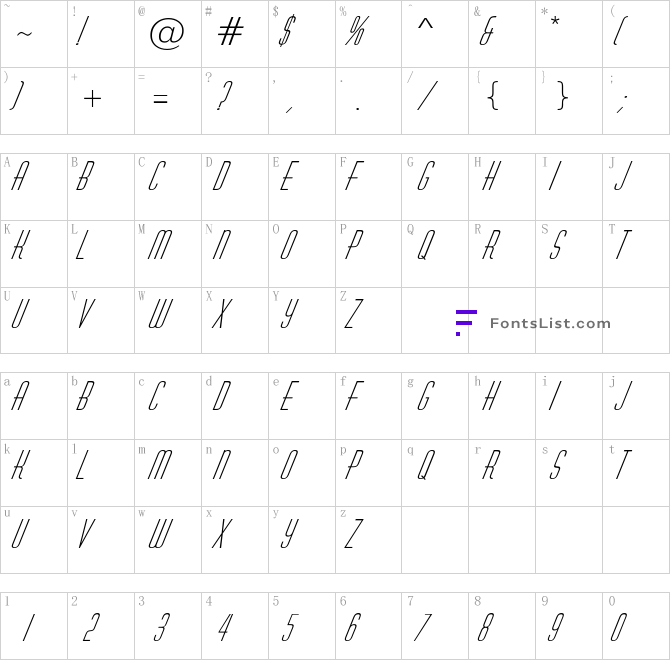
a_Huxley-Italic.ttf is a very beautiful artistic font, a_Huxley-Italic.ttf is widely used in the design and printing of various books and pictures,a_Huxley-Italic.ttf has a strong visual impact,a_Huxley-Italic.ttf is a commonly used font in newspapers, magazines and books, and is used in posters, e-commerce Poster design, store design, logo design, font design and other fields.a_Huxley-Italic.